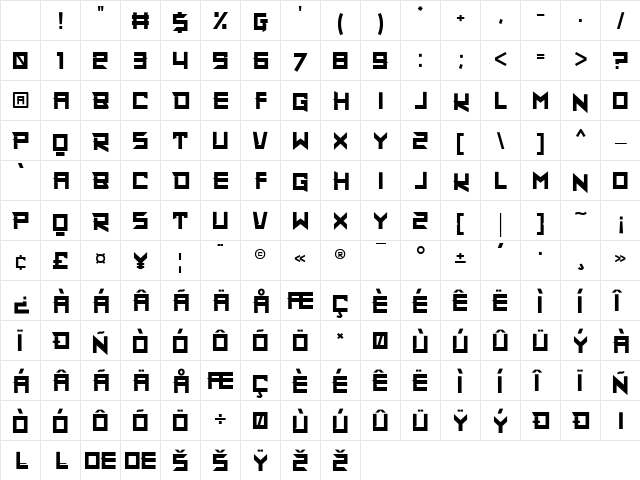
Super Maizen is a composed and adaptable typeface that performs quietly and consistently across a wide range of design contexts.
Pro Tip: Use Super Maizen in both headline and body roles to test its range before committing to a single application.